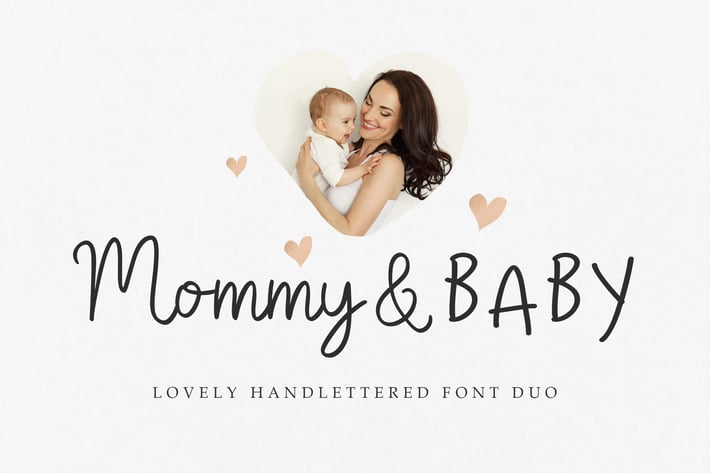
Mommy and Baby Font Duo
Mommy & Baby is a romantic and innocent handwritten duo font. Dainty and joyful, this font will be ideal for writing wedding invitations, cards or any other design that may need an adaptable, customized touch!